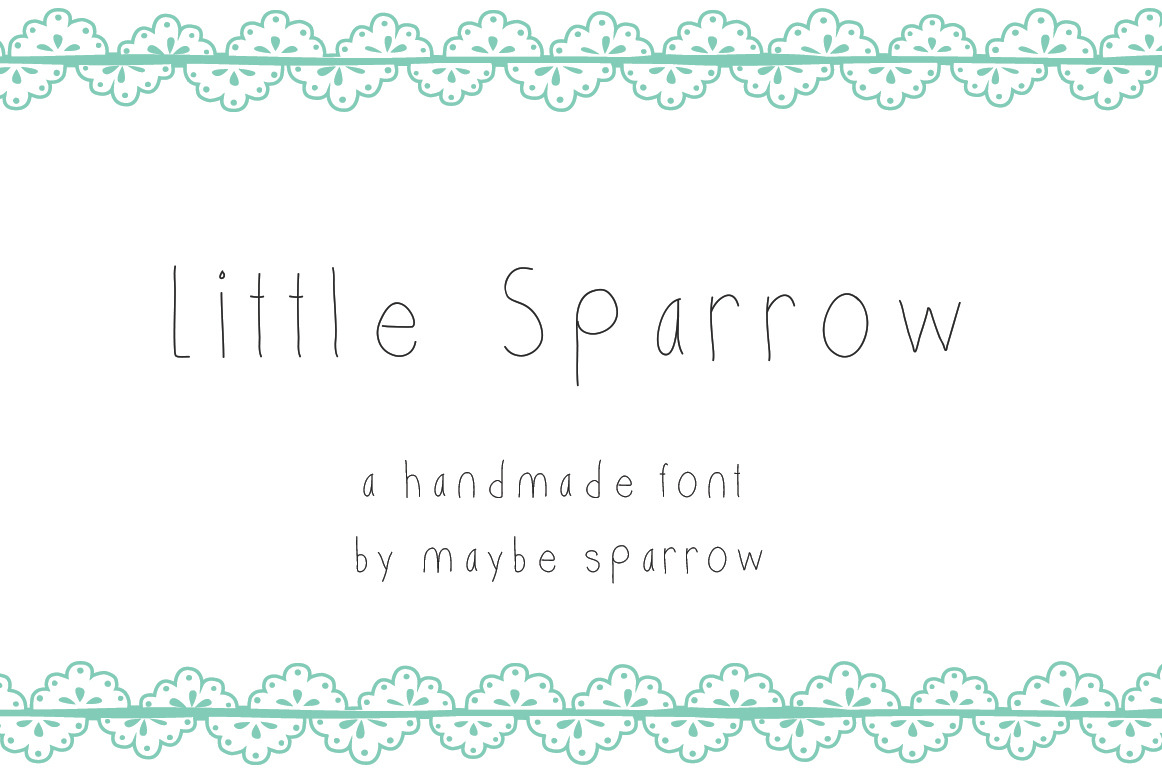
Little Sparrow Font
A little hand drawn font for your little projects. Skinny and quaint, and a little precious. English symbols only but international symbols coming in the next day or two so stay tuned!